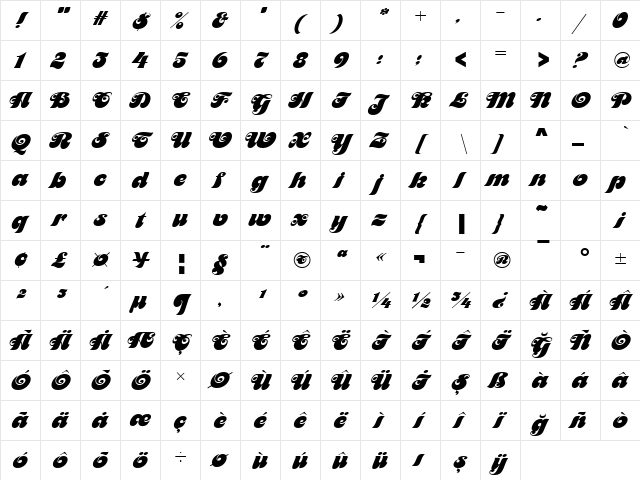
MotterFem Regular
Design Context for MotterFem
MotterFem is a composed and adaptable typeface that performs quietly and consistently across a wide range of design contexts.
Pro Tip: Use MotterFem in both headline and body roles to test its range before committing to a single application.